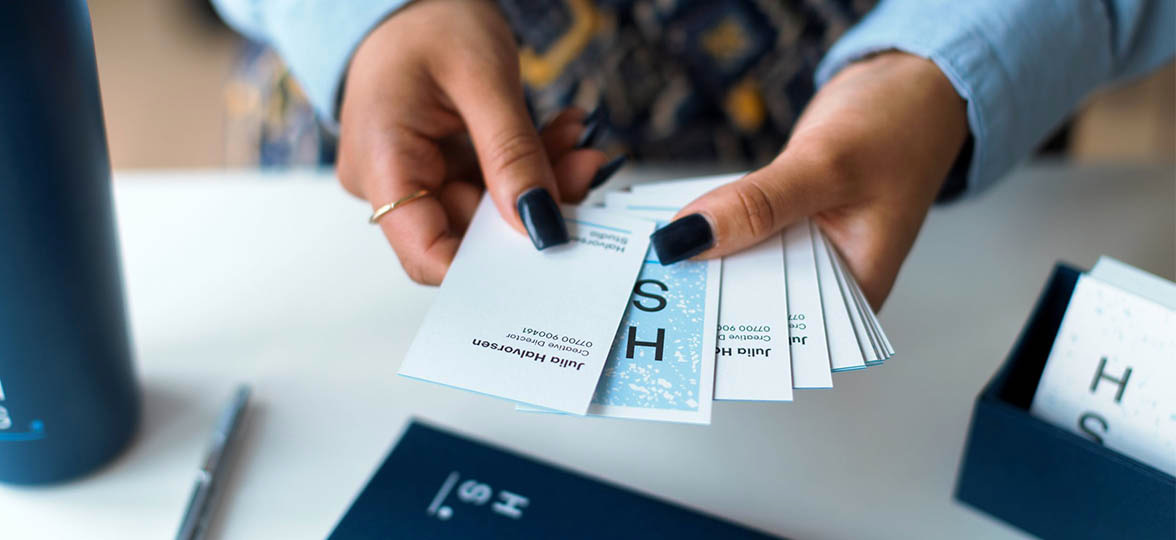
What’s the perfect font size for Business Cards?
Follow the guide to stand out loud and proud. And legible.
Good Business Cards do the talking. But with a tiny font, it may be more of a whisper.
So what size font is best for Business Cards? Specs, typefaces, special finishes… – we’ve got you covered.
Finding the Holy Grail of Business Card font sizes
It’s actually pretty easy to pick the right font size for your Business Cards if you follow some basic rules.
First, you should know font sizes are measured in points. That’s the number you see on your Word documents and Photoshop files when you adjust the size of your text. The size of a point has varied between 0.18 and 0.4 millimetres over the past 200 years. And there are approximately 72 points in one inch. The point is, points are tiny.
Now we’ve got our units right, let’s start with the ideal size. The recommended font size for Business Cards is 8pt or over.
If you really have to go tiny, the smallest font size for Business Cards is 7pt. Very small text can look good on screen but doesn’t print well. Anything below that size will be unreadable to anyone. And if you’re using your cards as something else (like loyalty cards), then your T&Cs should be no smaller than 6pt.
What if you’re using special finishes?
The specs above work well for regular print. However, when it comes to special finishes like Gold Foil and Spot Gloss, the smallest font size for Business Cards is 10pt. Otherwise, the small gaps in your typography will cause pooling. (To be clear, pooling has nothing to do with swimming. It’s when the special finish spills out beyond the limits of your design because gaps are too small.)
Size isn’t everything
So now you know how to choose the best font size for your Business Cards, but there’s more to consider. Readability isn’t just a question of size. It’s also about colour, weight and style. Tick all the boxes with our tips below:
Font colour
Print is a science – especially when it comes to picking your font colours. To make sure your text stands out, use bold colours made up of just one or two CMYK inks. CMYK represents the four ink plates used in printing: cyan, magenta, yellow and “key” (basically, black). 100% “k” text will be crisper and more legible.
When you’re choosing a font colour, consider your background and the rest of your design, too. Avoid combinations of “vibrating colours”, where the brightness of both colours causes a clash that affects legibility. Vibrating colours are:
- Red and green
- Blue and orange
- Green and blue
For colour combos that work, try these.
Font weight
Bold, medium, or thin? Most typefaces are available in various weights and part of a bigger font family. Bolder fonts tend to be more legible than thin ones, especially on print. If you’re using special finishes for your Business Cards, steer away from extra bold (and extra thin) fonts to avoid pooling and misprinting.
Font style
When you’re choosing a typeface, legibility should always be front of mind. Avoid intricate and calligraphy-style fonts for contact details and information. You might lose clarity.
Sans serif fonts (minimalist fonts with no lines finishing the strokes) tend to be clearer and more readable, making them perfect for small type and contact information. Serif fonts, with their old-timey curves, are a little bit more detailed. You can play with various weights within the font family to create a coherent look, or pair a sans serif font with a serif or a script one.
With their handwritten style, script fonts are better for logos and names. Avoid using them for small details such as phone numbers and addresses. As the Business Card’s font size shrinks, you can lose some of the nuances that make its beauty (and clarity).